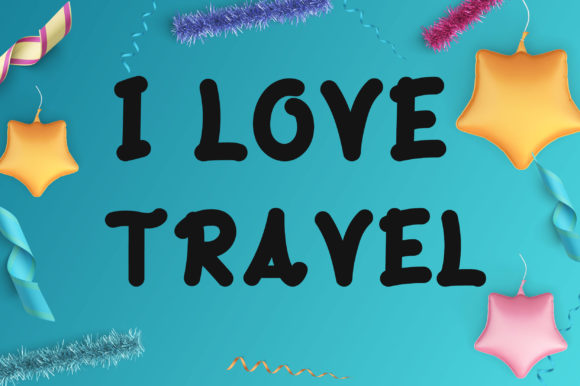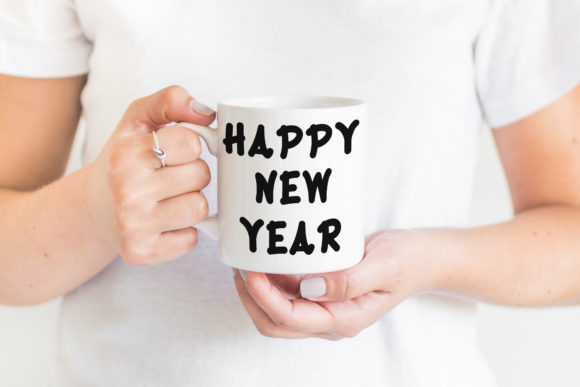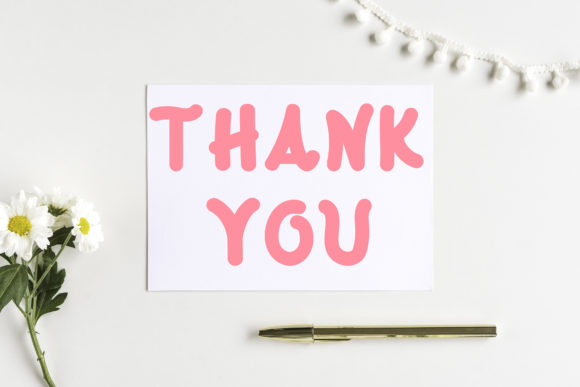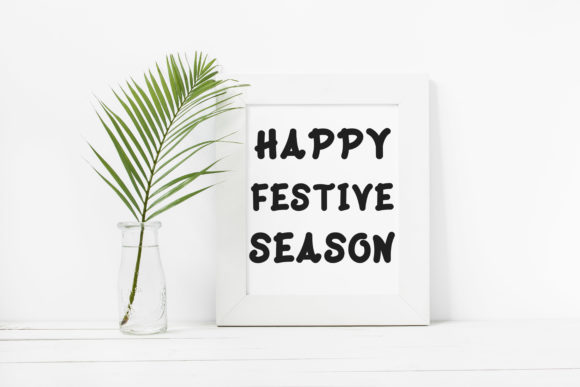
Introducing Festive Time Font: The Perfect Addition to Your Creative Projects
Are you looking for a font that can add a touch of warmth and personality to your designs? Look no further than Festive Time Font, a bold and friendly handwritten font that’s perfect for a variety of creative projects. In this article, we’ll take a closer look at Festive Time Font, its features, and how you can use it to bring your ideas to life.
What is Festive Time Font?
Festive Time Font is a bold and friendly handwritten font that’s designed to add a personal touch to your designs. Its unique and playful style makes it perfect for a variety of projects, from holiday cards and invitations to branding and advertising materials. With its bold lines and friendly demeanor, Festive Time Font is sure to make your designs stand out from the crowd.
Features of Festive Time Font
So, what makes Festive Time Font so special? Here are just a few of its key features:
- Bold and Friendly Style: Festive Time Font has a bold and friendly style that’s perfect for making a statement. Its unique and playful design makes it perfect for a variety of creative projects.
- Handwritten Style: Festive Time Font is a handwritten font, which gives it a personal and authentic feel. It’s perfect for adding a touch of warmth and personality to your designs.
- Easy to Read: Despite its bold style, Festive Time Font is easy to read, making it perfect for use in a variety of projects, from headlines to body copy.
- Versatile: Festive Time Font is a versatile font that can be used in a variety of projects, from holiday cards and invitations to branding and advertising materials.
How to Use Festive Time Font
So, how can you use Festive Time Font in your creative projects? Here are a few ideas to get you started:
- Holiday Cards and Invitations: Festive Time Font is perfect for holiday cards and invitations. Its bold and friendly style makes it perfect for adding a personal touch to your holiday greetings.
- Branding and Advertising: Festive Time Font can also be used in branding and advertising materials, such as logos, brochures, and flyers. Its unique and playful style makes it perfect for making a statement.
- Social Media Graphics: Festive Time Font can also be used in social media graphics, such as Facebook posts and Instagram stories. Its bold and friendly style makes it perfect for grabbing attention and adding a personal touch to your social media posts.
- Crafting and DIY Projects: Festive Time Font can also be used in crafting and DIY projects, such as handmade cards and gift tags. Its unique and playful style makes it perfect for adding a personal touch to your handmade creations.
Tips for Using Festive Time Font
Here are a few tips for using Festive Time Font in your creative projects:
- Use it Boldly: Festive Time Font is a bold font, so don’t be afraid to use it boldly. Use it in large sizes to make a statement, or use it in smaller sizes to add a touch of personality to your designs.
- Pair it with Other Fonts: Festive Time Font can be paired with other fonts to create a unique and interesting look. Try pairing it with a sans-serif font for a modern look, or with a script font for a more elegant look.
- Experiment with Colors: Festive Time Font can be used with a variety of colors to create a unique and interesting look. Try using it with bright and bold colors to make a statement, or with more muted colors to add a touch of subtlety to your designs.
| Author | PearlyDaisy |
Festive Time Font is a bold and friendly handwritten font that’s perfect for adding a personal touch to your creative projects. Its unique and playful style makes it perfect for a variety of projects, from holiday cards and invitations to branding and advertising materials. With its bold lines and friendly demeanor, Festive Time Font is sure to make your designs stand out from the crowd. So why not give it a try and see how it can bring your ideas to life?
Whether you’re a designer, crafter, or DIY enthusiast, Festive Time Font is a great addition to your creative toolkit. Its versatility and ease of use make it perfect for a variety of projects, and its unique and playful style is sure to add a touch of personality to your designs. So go ahead, add Festive Time Font to your favorite creative ideas and notice how it makes them come alive!